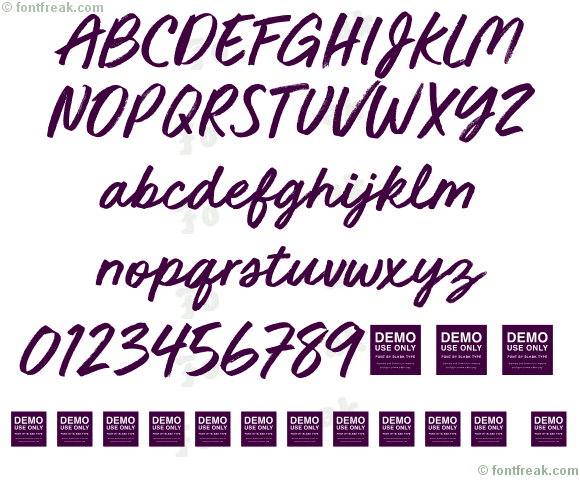
Cool Breeze
The Cool Breeze font by BLKBK Fonts is a delightful handwritten typeface that combines elegance with a casual flair. This display font is characterized by its fluid, flowing strokes that evoke a sense of lightness and airiness, much like a gentle breeze on a warm day. The stroke weight varies throughout, providing a dynamic contrast that enhances its playful yet sophisticated appearance. The spacing between the letters is well-balanced, allowing for easy readability while maintaining a relaxed aesthetic.
This charming font is particularly well-suited for a variety of creative projects. It shines in wedding invitations, where its romantic style can beautifully convey heartfelt messages. Additionally, Cool Breeze is ideal for crafting eye-catching restaurant menus, infusing them with a welcoming vibe that invites patrons to explore the offerings. Graphic designers may find it perfect for social media graphics, providing an appealing touch that resonates with contemporary audiences. Lastly, it can be used effectively in branding materials, helping small business owners craft a unique identity that stands out in a crowded marketplace.
The target audience for the Cool Breeze font includes graphic designers, small business owners, and content creators who seek to add a personal touch to their work. This font is a versatile tool for anyone looking to communicate warmth and creativity in their designs.
What truly sets the Cool Breeze font apart is its ability to blend a relaxed, handwritten style with a polished finish. This unique combination makes it an excellent choice for anyone wanting to evoke a sense of informality while still maintaining professionalism. For those interested, the Cool Breeze font free download offers an opportunity to incorporate this distinctive style into their projects with ease.